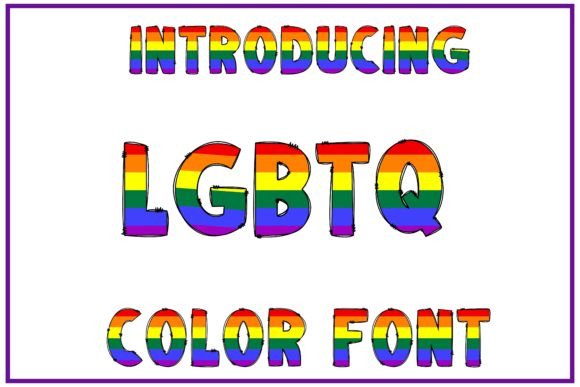
Prepare yourself to be spellbound by LGBTQ Rainbow, a font that embodies the vibrant spirit of the LGBTQ community. Its colorful and playful design captures the essence of inclusivity and diversity, making it the perfect choice for adding a touch of uniqueness to your digital creations.
Unleash your creativity with this extraordinary font, a masterpiece crafted by the talented CHEETAH DOODLE. Each character bursts with personality, brimming with life and ready to elevate your designs to new heights.
With its bubble rainbow design, LGBTQ Rainbow brings a sense of joy and wonder to your projects. Its cheerful hues and whimsical shapes evoke feelings of happiness and positivity, leaving a lasting impression on your audience.
Whether you're creating social media posts, designing invitations, or crafting digital art, LGBTQ Rainbow is the perfect font to convey your message with style and flair. Its versatility knows no bounds, making it an indispensable tool for any creative project.
Immerse yourself in a world of color and let your imagination soar. Download LGBTQ Rainbow today and experience the magic of a font that truly celebrates the beauty of diversity.